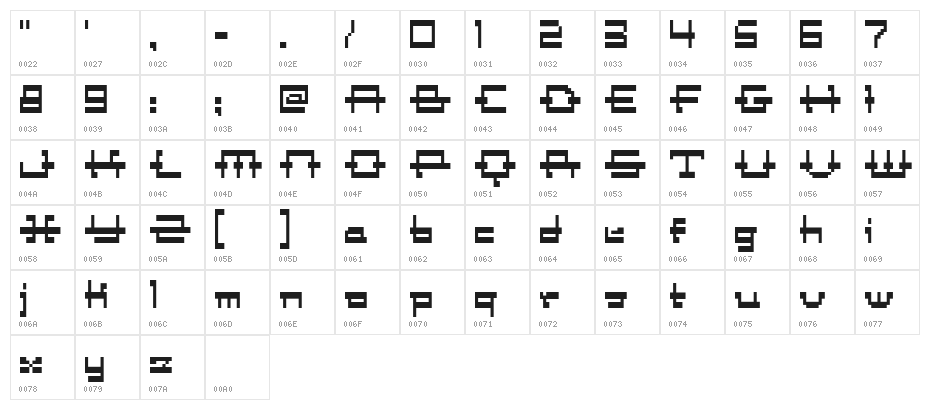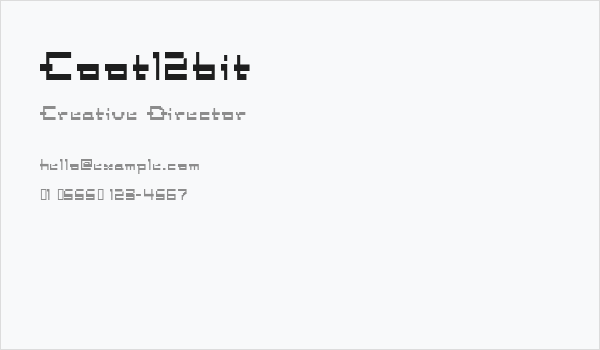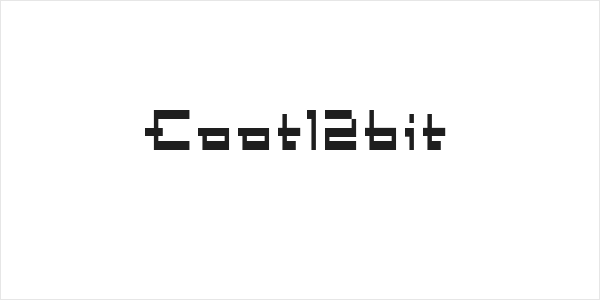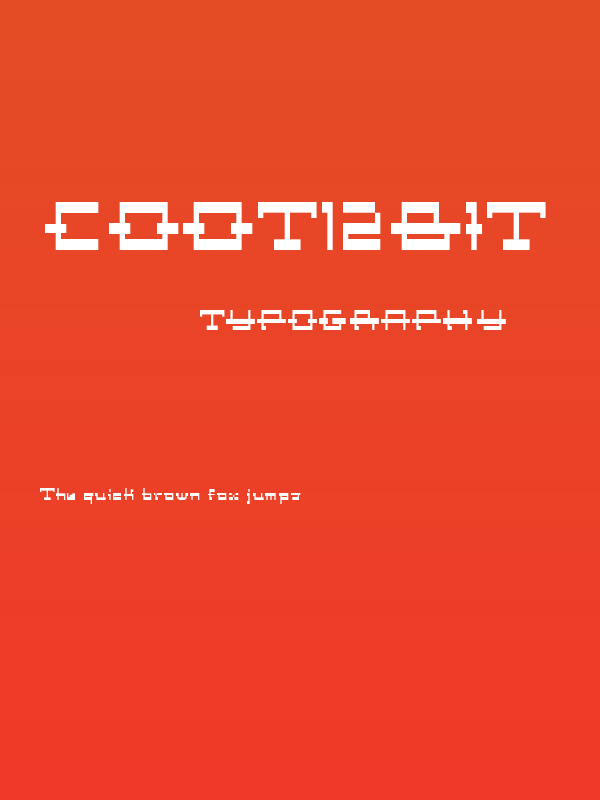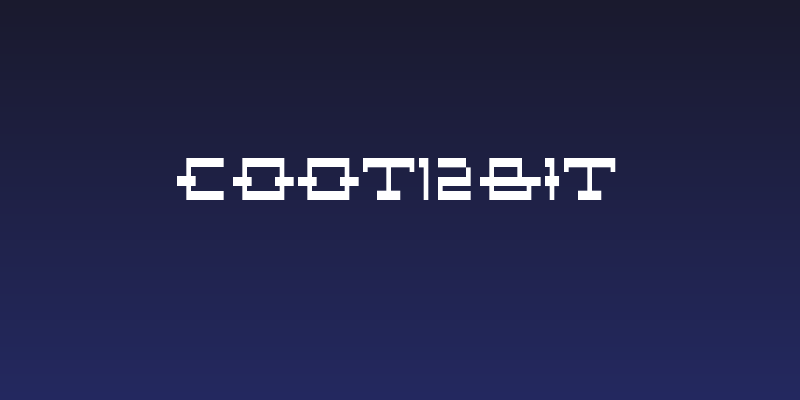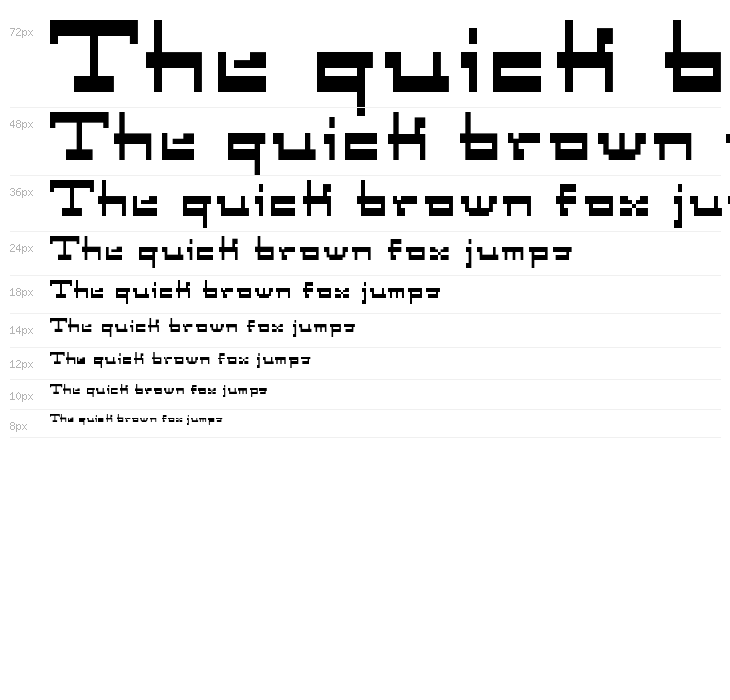
Coot12bit Font
Coot12bit Description
This font features a pixelated, blocky design reminiscent of early digital displays and retro video games. Each character is constructed with sharp, angular lines, giving it a distinctly digital and mechanical appearance. The uppercase and lowercase letters maintain a consistent height, contributing to a uniform look across text. Numbers and special characters follow the same pixelated style, ensuring visual coherence. The font's geometric structure makes it highly legible at various sizes, though it is best suited for larger displays where its unique style can be fully appreciated.
Overall StyleRetro, Digital
Use CaseHeadlines, Logos, Digital displays
Proposed ProjectsIdeal for retro-themed designs, video game graphics, digital art projects, and tech-related branding.